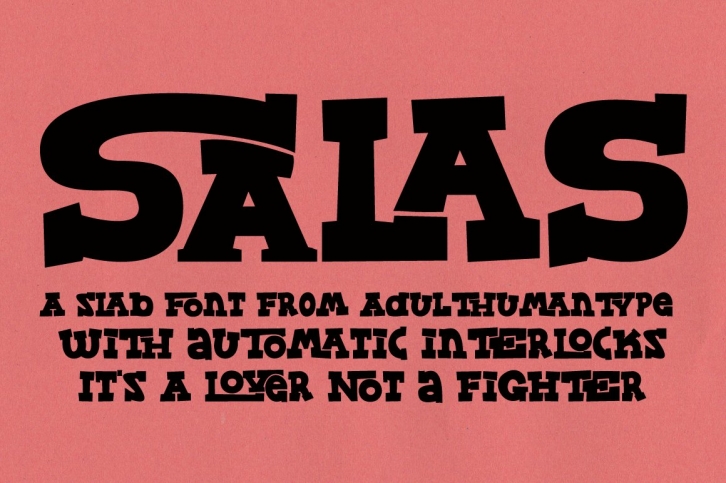
Salas is a fun, chunky, slab serif omnicase display font. It's blocky and loud, So it can scream from Posters and Headlines. Think of a clown with poor hearing making a Skype call, he's shouting, but you like it. Anyway It has over 300 glyphs, several variations on the standard alphabet and lots of those extra foreign features for sending international ransom notes.
OpenType coded, It has various letter pairings that interlock automatically to create a more randomized, bespoke feel to your copy. It also has some extra characters available directly through your glyphs palette. Play around with it , I hope you like it.